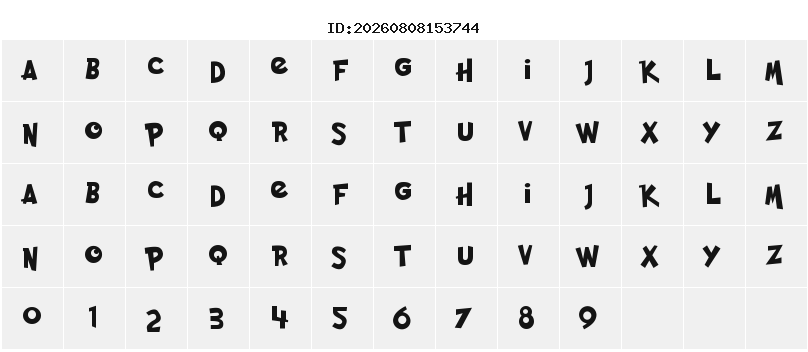
• Font Name: Pocket Monk
• Designer: AM
About Pocket Monk.otf
Pocket Monk.otf is a modern, elegant sans-serif font designed for ultimate readability and visual harmony. Perfect for branding, headlines, web design, and print materials.